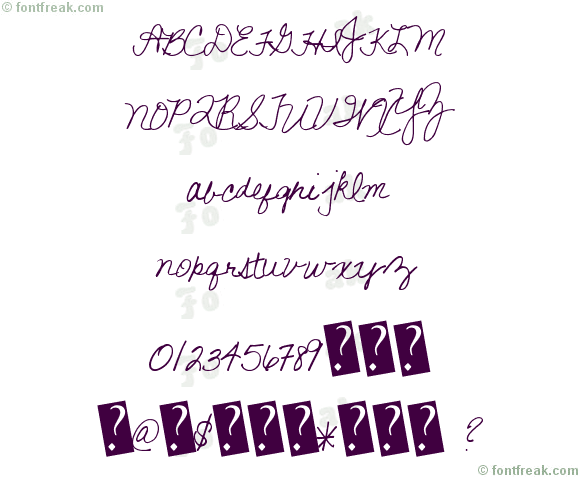
GiftExchange
GiftExchange, created by XEROGRAPHER FONTS in 2012, is a delightful handwritten font that exudes warmth and personality. This freeware font is characterized by its charming, fluid strokes that mimic the natural flow of handwriting, making it an ideal choice for projects where a personal touch is desired. The stroke weight varies slightly, providing a sense of organic movement, while the letters maintain a balanced spacing that enhances readability. The cursive style features playful loops and swirls, adding an enchanting flair that captures attention without overwhelming the viewer.
This font is perfect for a variety of creative applications. Its whimsical nature makes it an excellent choice for wedding invitations, where it can evoke romance and intimacy. Additionally, GiftExchange is well-suited for greeting cards, providing a heartfelt expression for special occasions. Restaurant menus can also benefit from this font, as its unique style can help convey a cozy, welcoming atmosphere. Furthermore, it can be used effectively in social media graphics and promotional materials aimed at small businesses, helping to create a relatable brand identity.
The target audience for the GiftExchange font includes graphic designers, small business owners, and content creators who seek to infuse their work with a touch of authenticity and charm. The font’s versatility ensures it can enhance a wide range of projects, appealing to those who wish to stand out in a crowded market.
What sets the GiftExchange font apart is its ability to combine casual elegance with approachability. It invites viewers to engage while maintaining a sense of sophistication. For those looking to add a personal touch to their designs, a GiftExchange font free download offers an excellent opportunity to elevate any project with its unique character and charm.